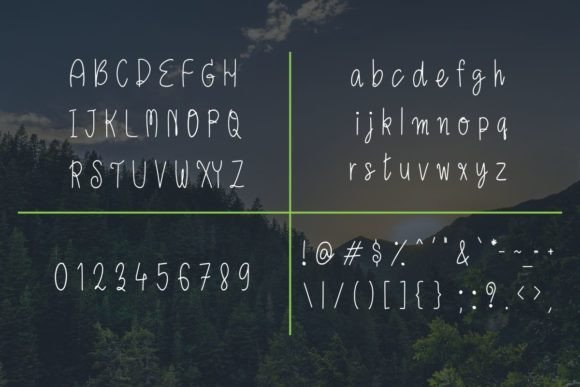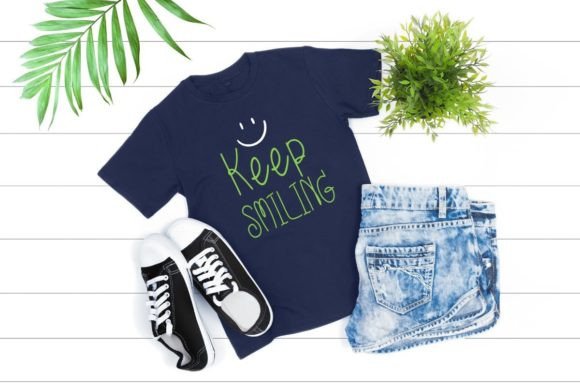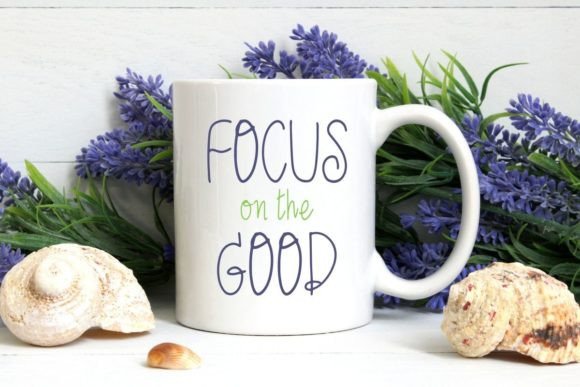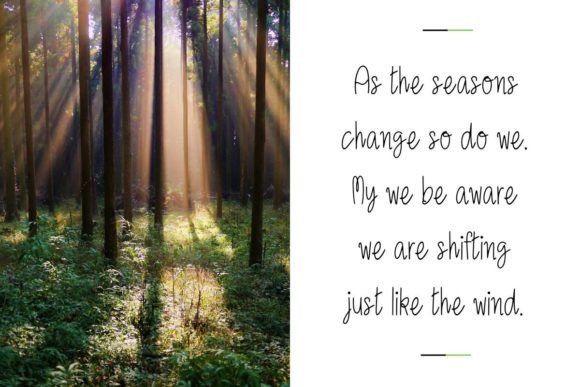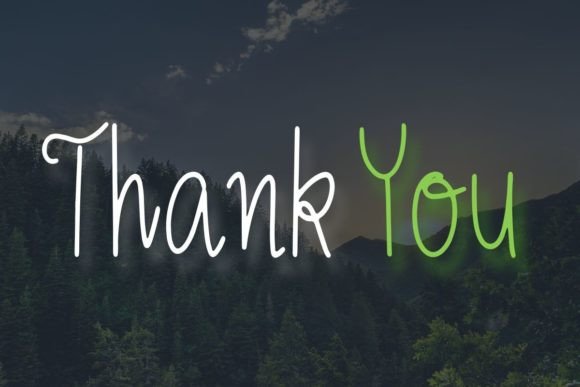
Sunday Morning Font
About Sunday Morning Font
Sunday Morning is a cute and relaxed handwritten font. Perfect for branding, invitations, blogs, and planners. Adding an authentic hand-lettered touch to your projects couldn’t be easier!